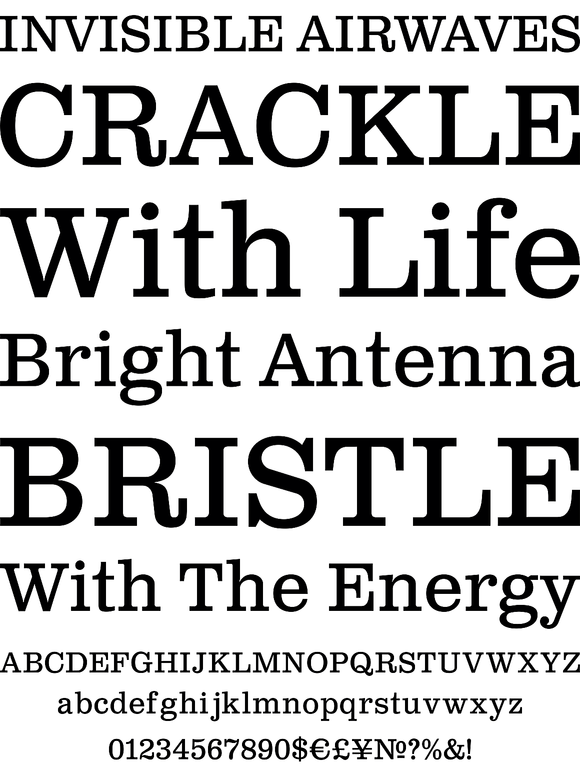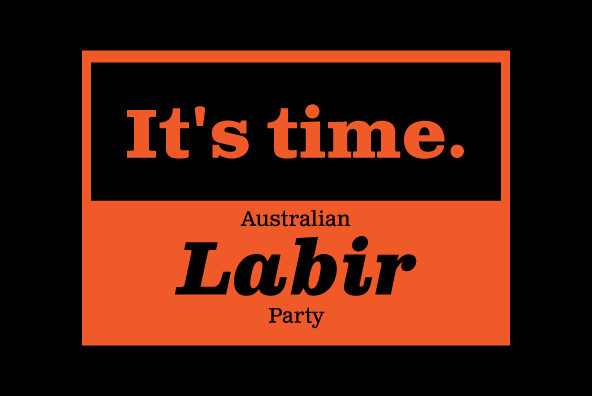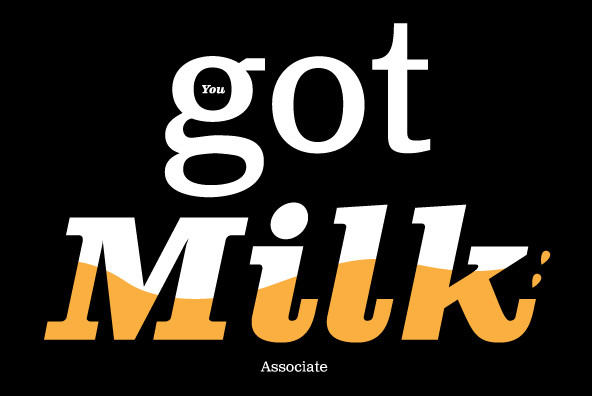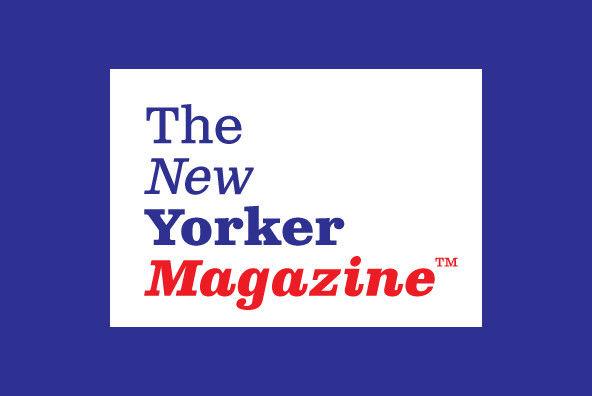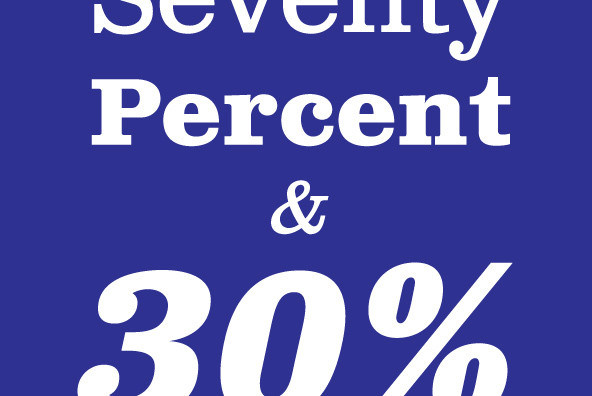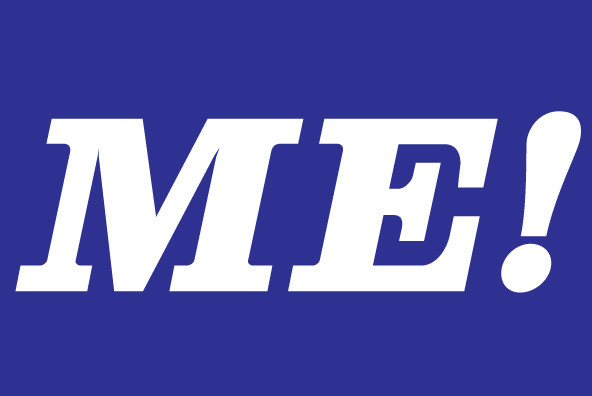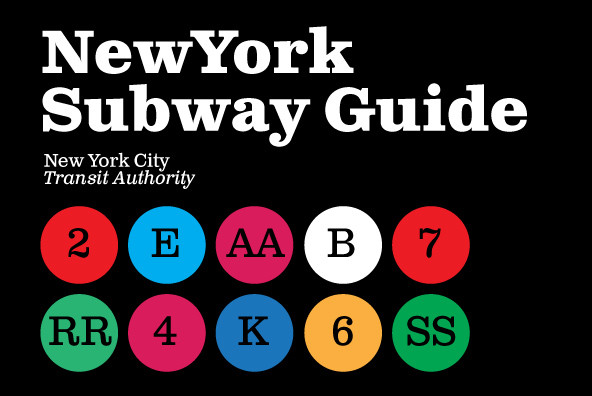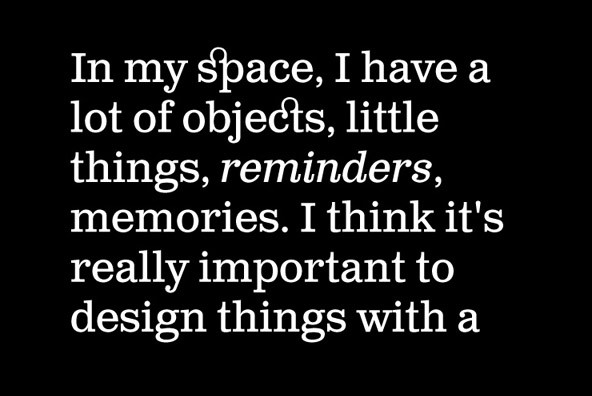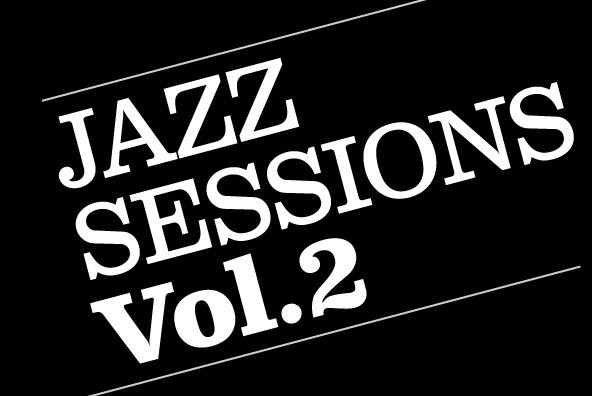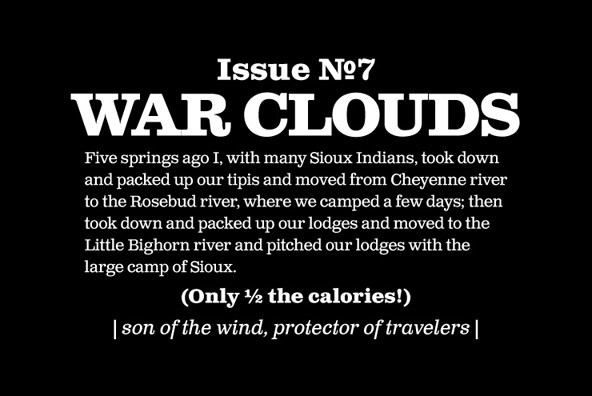
Clarendon Text
Clarendon Text is a contemporary remake of the truly classic slab serif typeface with a distinctively clear and legible visibility. It is a widely usable text type suited equally well to advertising, books, publications, and a wide range of corporate literature where large amounts of reading matter call for distinction and style without sacrificing readability.
The rich, full-bodied style of Clarendon Text takes its primary inspiration from the classic 1953 Hoffmann/Eidenbenz polishing of the mid-nineteenth century English slab serifs originally conceptualized by extraordinary craftsmen like Vincent Figgins and Robert Besley. The italic styles of Clarendon Text take their cue from Aldo Novarese's 1955 Egizio typeface, which was the very first to attempt a true italic companion to the Clarendon roman.
Clarendon Text slightly departs from the original roman and bold in semantic details that make it contemporary and more easily read. The shapes of the letters like a, g, q, and t were revised to be more in line with an immersive body copy face. The original a, g, q and t are available as alternates, for display uses, or those designers who like to make use of the traditional Clarendon. The ascender serifs were also slightly revised for a better immersive reading fit. Clarendon Text was tested thoroughly for readability in sizes between 8 and 12 pt. This is demonstrated in the 4-language print test PDF available here in the font gallery. Display uses are also clear and attractive, especially with the bold weights.
Clarendon Text is also the very first version of the Clarendon classic that takes advantage of current type technologies to bring you small caps, five different styles of figures, fractions, and support for over 40 Latin-based languages. Each of Clarendon Text Pro's 4 fonts contains over 580 characters.